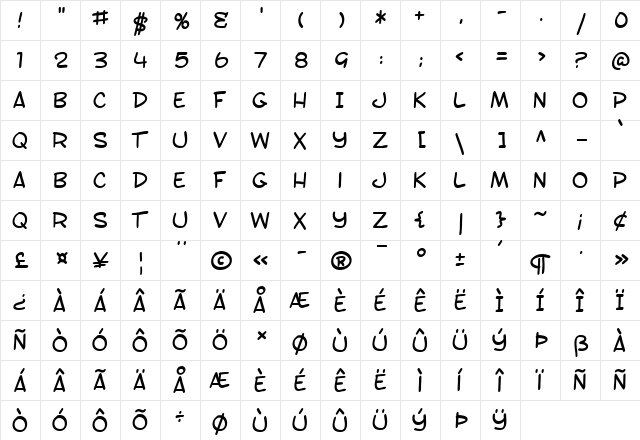
SF Toontime Regular
| Designer | ShyFonts Type Foundry |
Design Context for SF Toontime Typeface
SF Toontime is a composed and adaptable typeface that performs quietly and consistently across a wide range of design contexts.